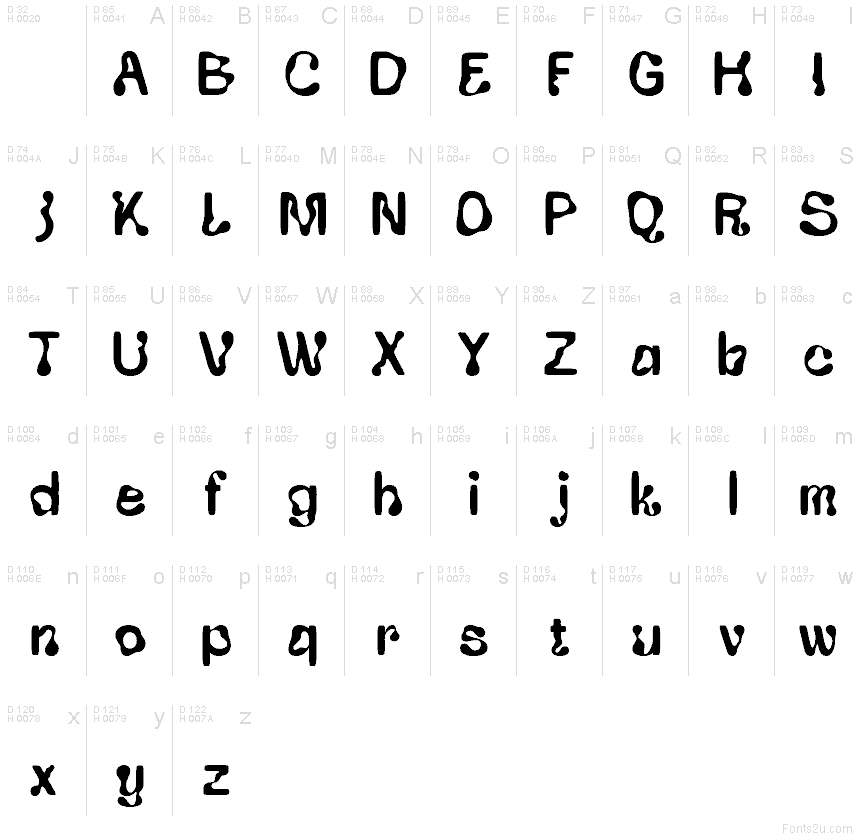
CSBraveDrawn-Regular Demo
CS Brave Drawn font is a free display font designed by Craft Supply Co. with distorted shapes and a handcrafted appearance. It has a whimsical aesthetic characterized by artistic, irregular strokes and casual detached letters that stand out in any branding project. With its unique character and legibility, CS Brave Drawn would make an outstanding font for creating eye-pleasing typography within contrasting and complementing visual identities.
The standout identity of this free display font makes it suitable for designing brand identities, official logotype creation, as well as product packaging designs such as food labels or taglines. Create world-class book cover designs or use the typeface to bring new energy to posters, ads, hoardings and signboards. Customize websites with beautiful typography for the homepage design of different clients along with app user-interface designs that need amazing typefaces to retain audience attention.